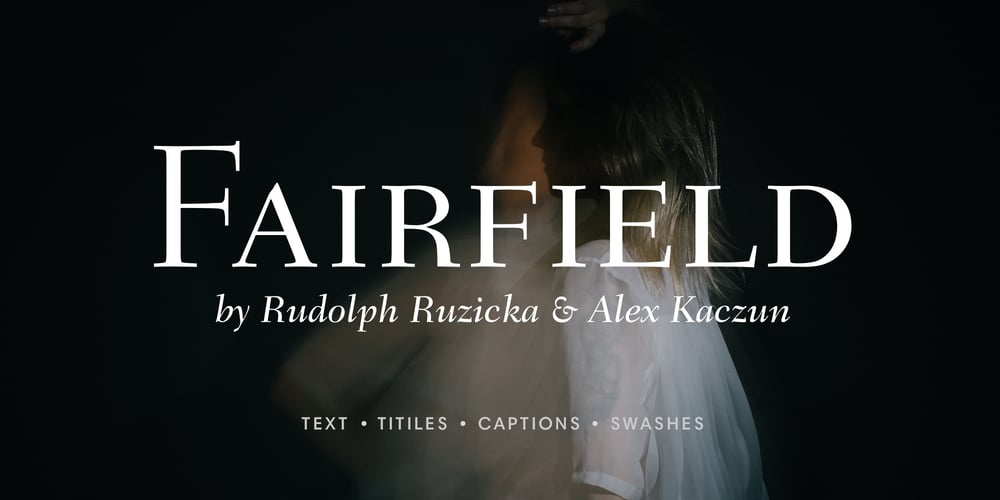
Fairfield Font Family was designed by Alex Kaczun, Rudolf Ruzicka and published by Linotype. Fairfield contains 12 styles and family package options. Rudolph Ruzicka designed his font Fairfield as a legible text font. His philosophy: The reader expects optical assistance with reading. He does not want to be distracted while interpreting and understanding the ideas of a text.” Fairfield font is based on the forms of Venecian Old Face fonts as well as on the designs and details of Art Deco, giving the font a distinctive appearance”